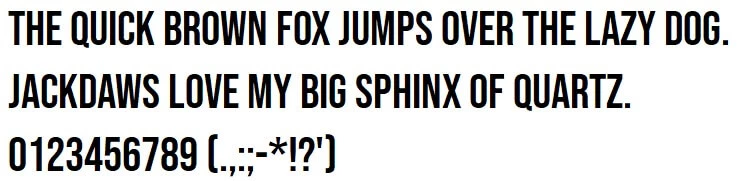
About The Font
Netflix is one of the world’s most popular streaming services. It offers a wide range of movies and TV shows, and its interface is user-friendly. Netflix, Inc. is an American media services provider and production company headquartered in Los Gatos, California, founded in 1997 by Reed Hastings and Marc Randolph in Scotts Valley, California. One of its staples is its series, such as Stranger Things, House of Cards, and Narcos. However, the Netflix logo is not always easy to identify. The font used in the logo could be a source of confusion for users. Let’s see what font is used in Netflix’s logo.
Old Logo: From 1997 to 2014, the Netflix logo was based on a customized version. The fonts match the Graphique font designed by Hermann Eidenbenz and issued by the Haas Foundry in 1945–46.
New Logo: In 2014, Netflix updated its logo, replacing “Graphique” with a flat and less distinctive type at its core. The font used in the Netflix logo is Bebas Neue. Bebas Neue is a sans-serif typeface designed in 2010 by Ryoichi Tsunekawa. This is a free font that is also available on Google Fonts. The free version of Bebas Neue has only uppercase letters. There is also a pro version of this typeface. The thinner uppercase from thin to regular weights was redesigned for Pro. In the pro version, you will additionally find lowercase letters. It’s also versatile and can be used for various types of logos.
To ensure that all of their titles are well-represented in their logo, Netflix also used Arial, Helvetica Neue, and sans-serif for the typeface for the Netflix App and the website’s font. Their logo is designed in a mix of vector and organic fonts. The font used in the Netflix logo was chosen to represent the company’s values and its focus on quality.
What other factors affect the use of fonts in Netflix’s logo?
Other factors that could affect the font used in Netflix’s logo include the typeface, color, and the font’s resolution. Additionally, it is essential to consider how well a font will match the layout of a website or logo. A suitable font should be easy to read and look good on any device.
Since it is used in the Netflix logo and is a light and easy-to-read font, you can use it for both text and logos. Additionally, the font is versatile and can be applied in several different styles. Depending on the website’s needs, it can be designed either modern or traditional. This font is also widely used in designing platforms.
Name | Netflix Font. |
Style | Sans-serif Font. |
Designer | Ryoichi Tsunekawa. |
Similar to Netflix Font
- Trade Gothic.
- Ever After.
- Bradbury Sans.
- Alegre Sans.
- What type of font is Netflix Font?